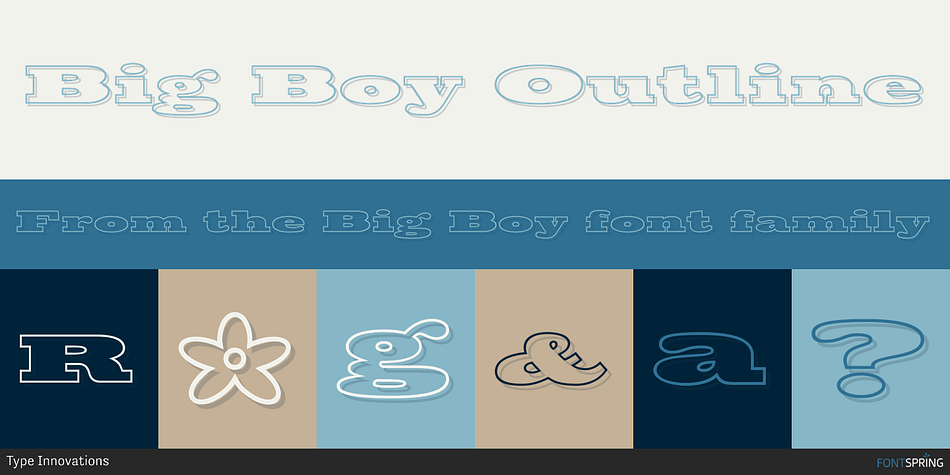
Big Boy Outline
Big Boy is a stencil and western font family. This typeface has four styles and was published by Type Innovations.
Big Boy is a true heavy weight font.
Big Boy is a true heavy weight font. There are few typefaces that come this large in overall width and proportions and are still legible. If I made this font any heavier it would soon die from a coronary heart attack. Use it for those really ‘Big’ headlines.